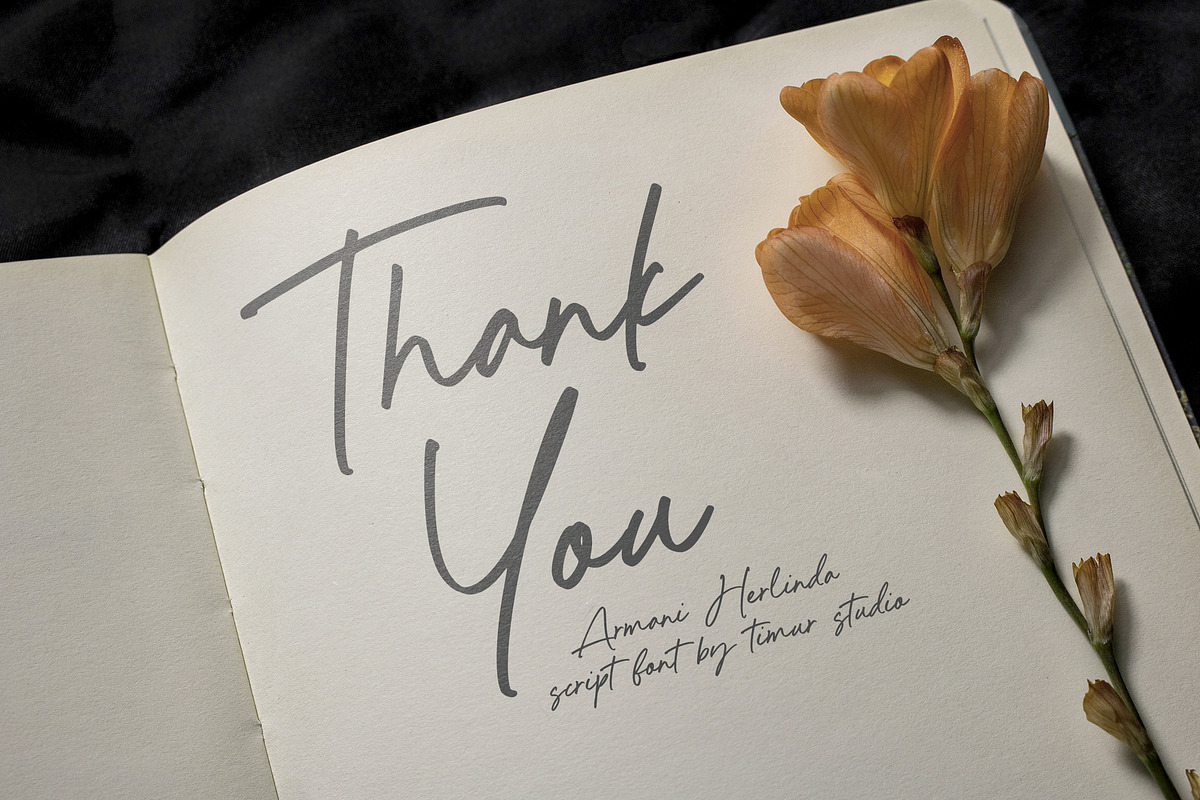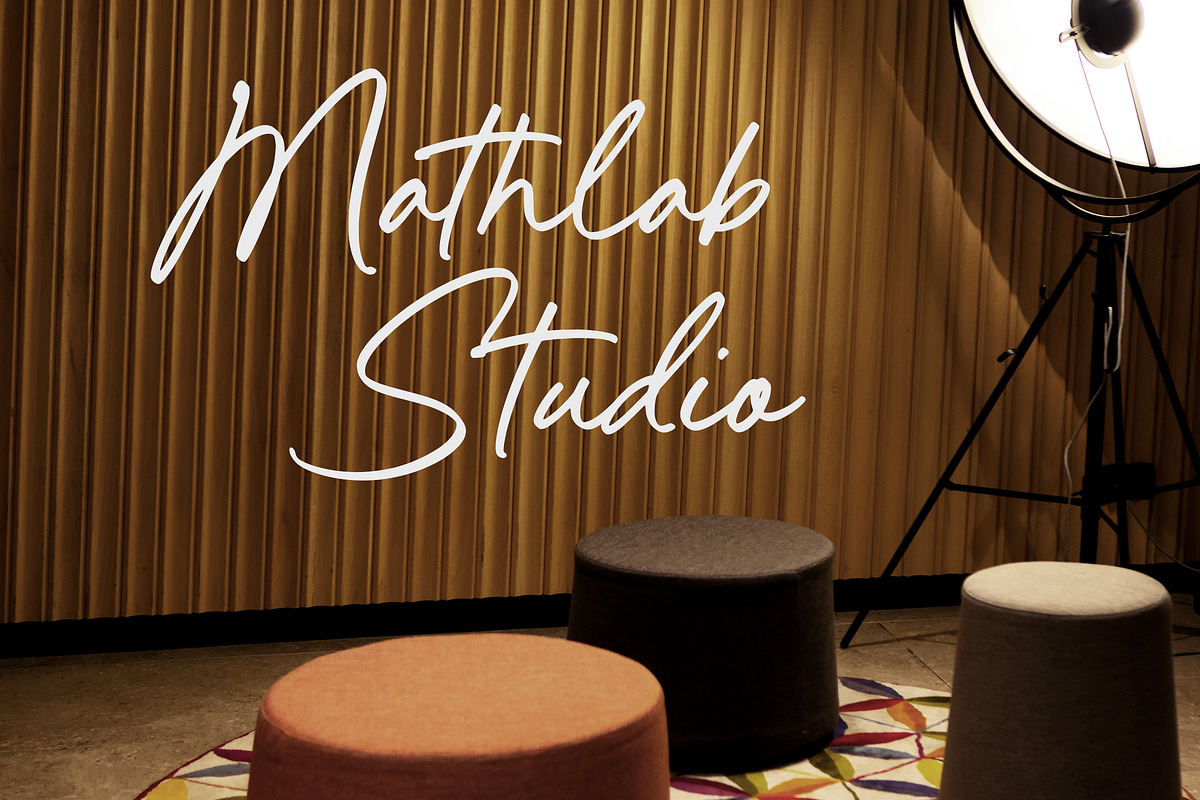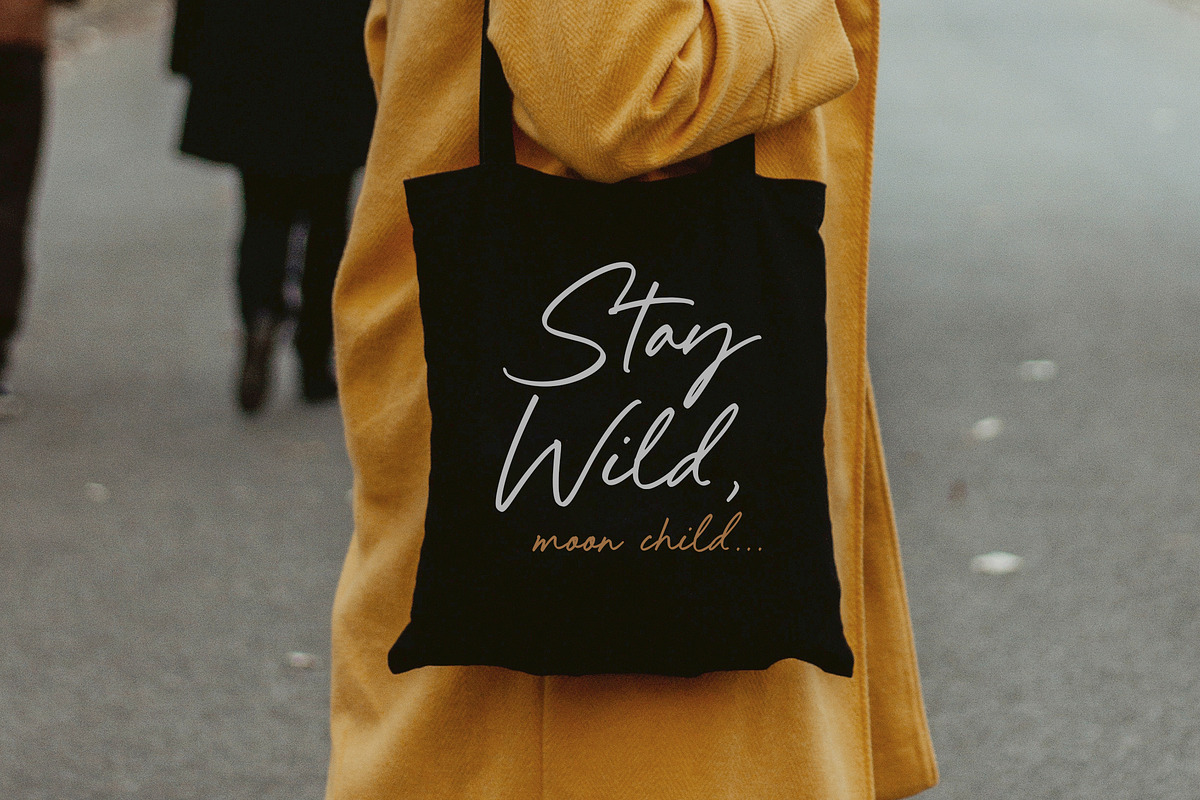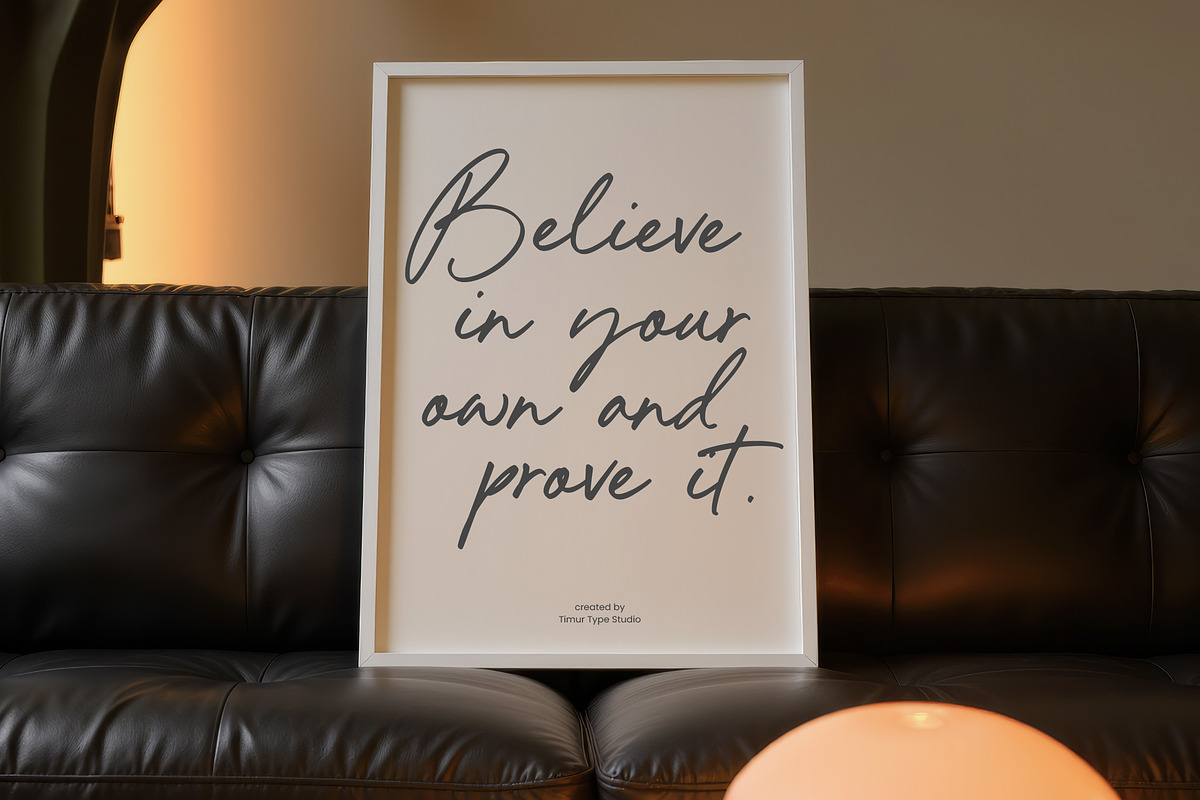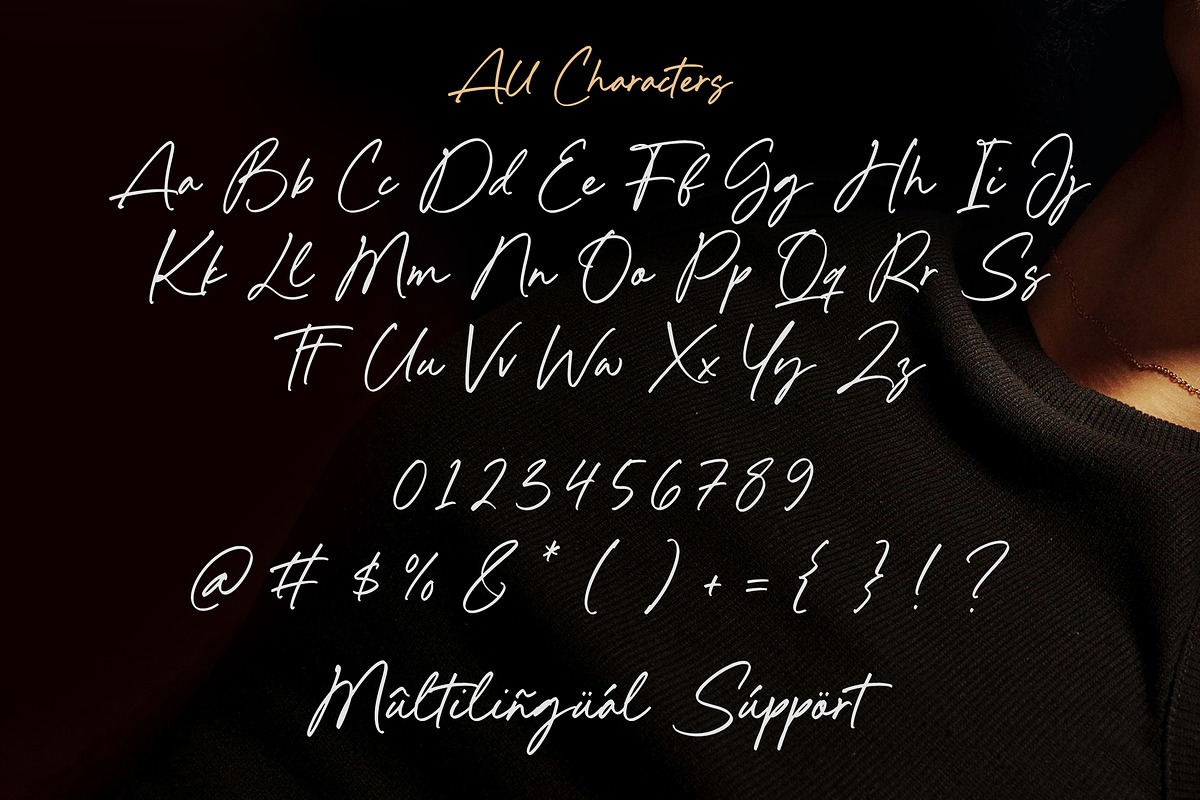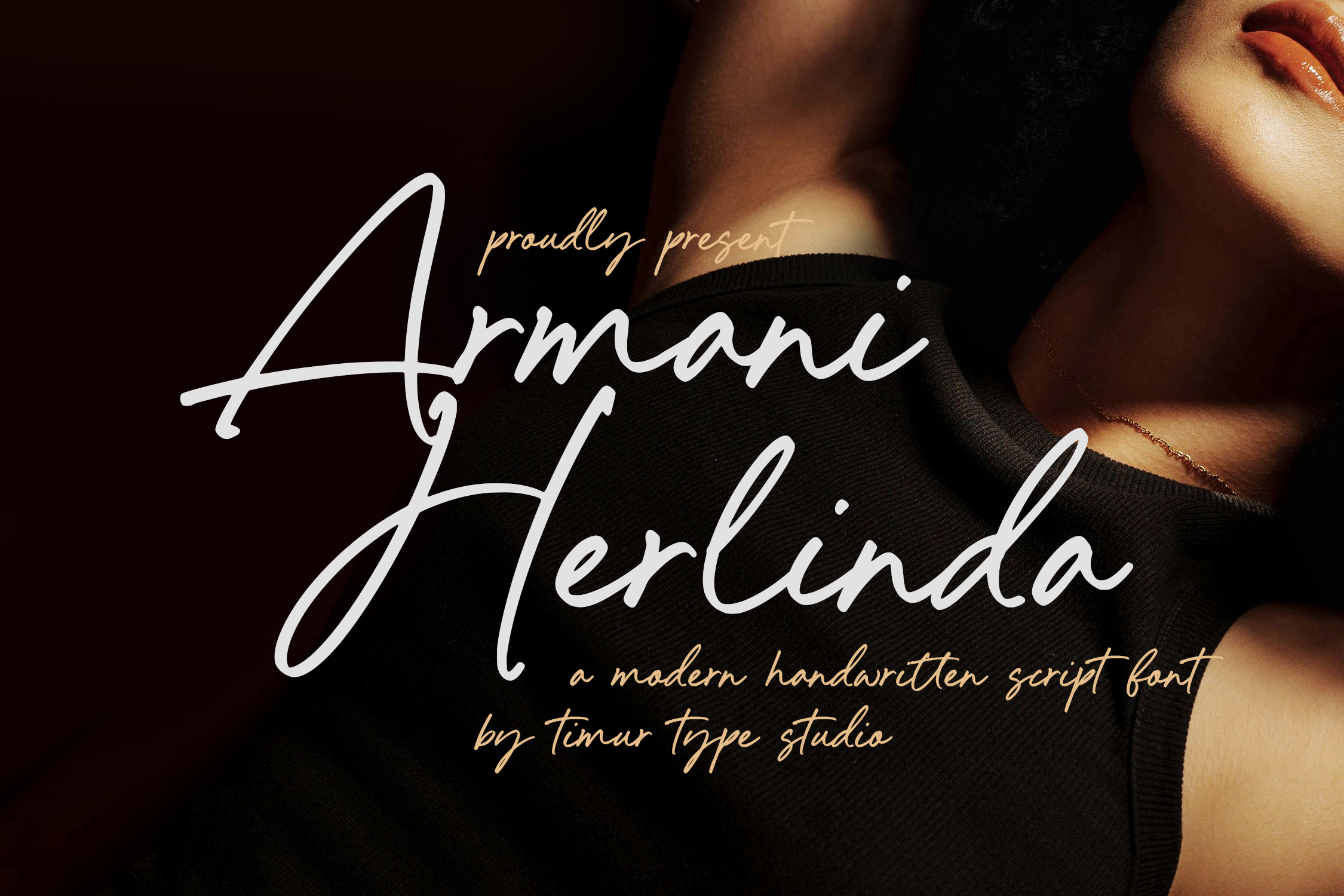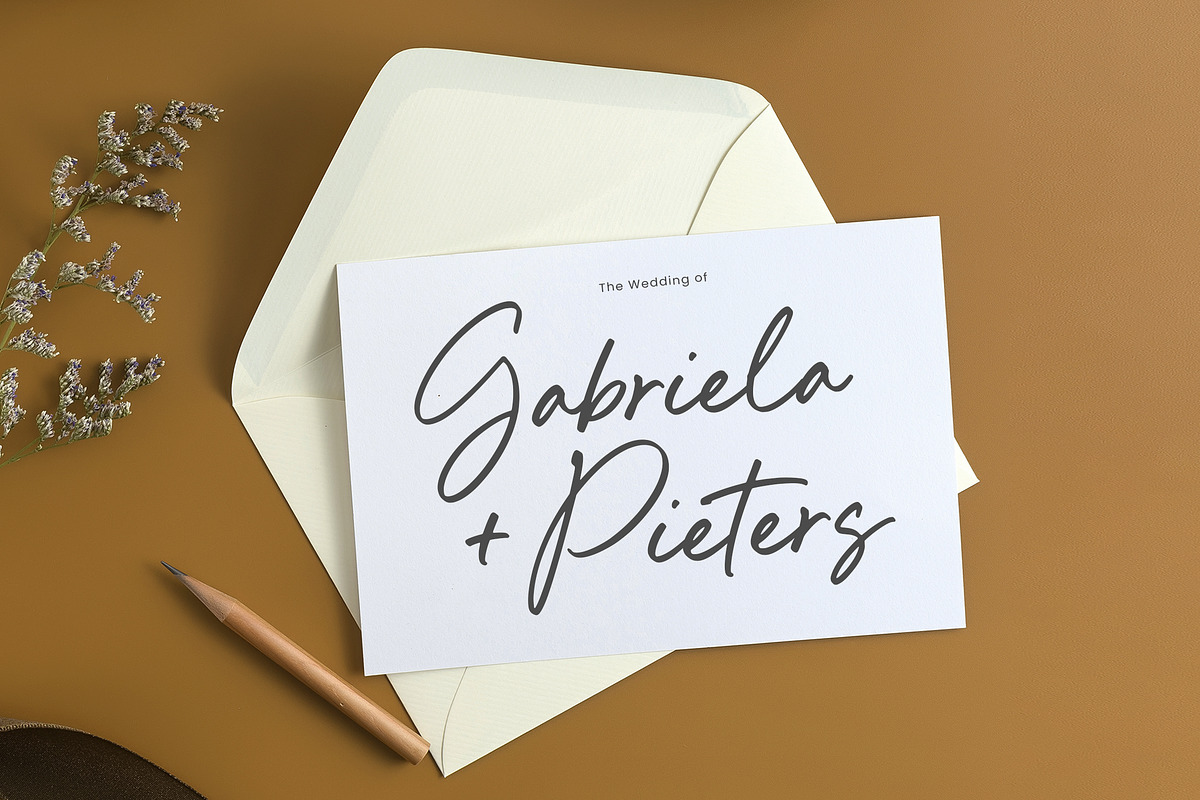
Armani Herlinda Font
Armani Herlinda is a Modern Handwritten Script Font
This font is a elegant and stylish modern handwritten script font that features fluid, flowing letterforms with a touch of sophistication. Its smooth curves and natural stroke variation give it a artistic feel, making it perfect for branding, invitations, logos, and other design projects that require a touch of refinement.
Armani Herlinda Font also supports multilingualism